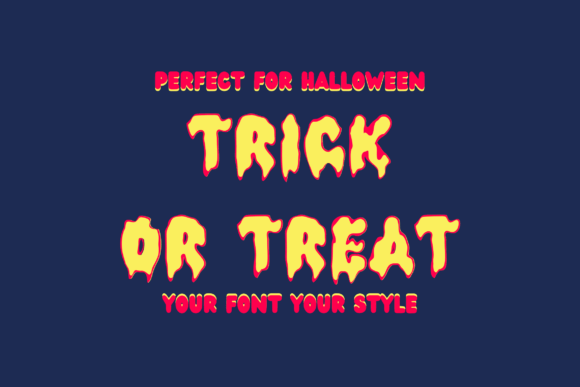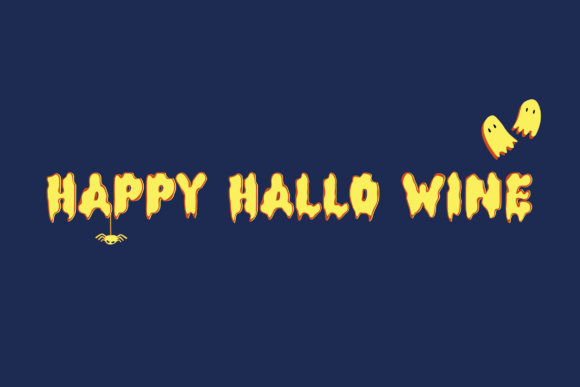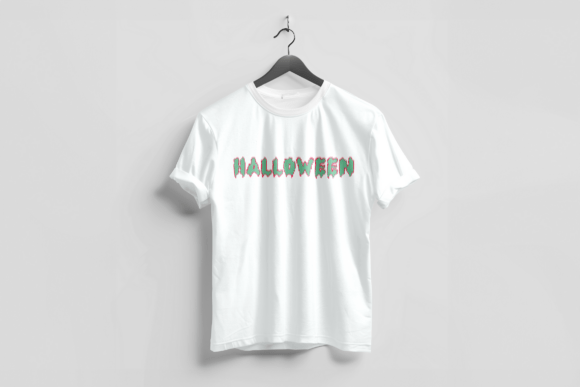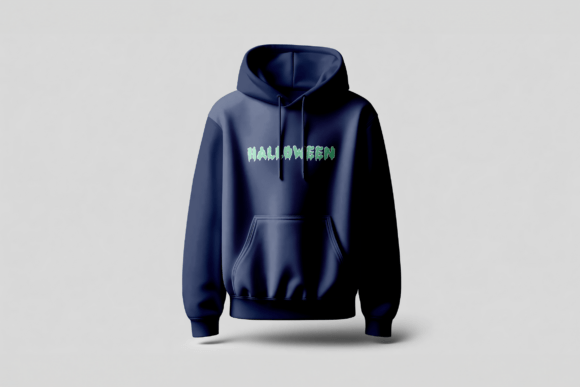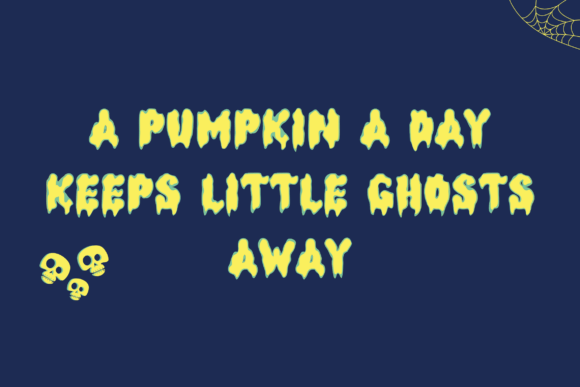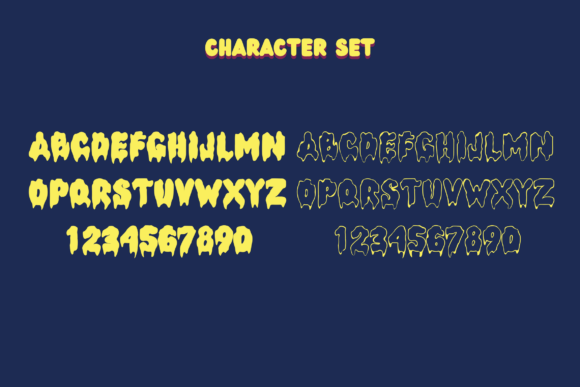
Have you ever been brainstorming a Halloween project, scrolling through font options, and suddenly stumbled upon the perfect match? That’s exactly what happened when designers discovered the enchanting Halloween Melt Font. This spellbinding typeface is specifically designed to capture the eerie essence of the spookiest night of the year.
With its melty, dripping design, Halloween Melt Font is perfect for adding a touch of whimsy and horror to your designs. Whether you’re crafting invitations, posters, or social media graphics, this font is sure to make your creations stand out from the crowd. Its layered format allows you to infuse depth and dimension into your text, creating a captivating, three-dimensional effect that’s sure to leave a lasting impression.
- Unique Characteristics: The Halloween Melt Font features a unique, melted design aesthetic, perfect for creating spooky and eerie effects in designs, prints, and digital art.
Halloween Melt Font Review
Overall, I’d say the Halloween Melt Font is a fun and spooky addition to any design project. The font has a great blend of creepy and playful elements, which makes it perfect for Halloween-themed designs, or even just for adding a bit of whimsy to your branding.
- ✨ Unique and creative design: The font has a lot of character and personality, which will definitely help your designs stand out.
- ✨ Perfect for Halloween and spooky designs: The font’s creepy and playful elements make it ideal for Halloween-themed projects, or for adding a spooky touch to your branding.
- ✨ Easy to read: Despite its creative design, the font is still easy to read, which is a big plus.
- ⚠️ Limited versatility: The font is very specific to Halloween and spooky designs, which means it may not be as versatile as other fonts.
- ⚠️ May not be suitable for formal designs: The font’s playful and creepy elements may not be suitable for formal or professional designs.
Overall, I’d say the Halloween Melt Font is a great choice for designers who are looking for a unique and creative font for their Halloween-themed projects. However, it may not be the best choice for designers who need a more versatile font that can be used in a variety of projects.
Some common use cases for the Halloween Melt Font include:
- Halloween party invitations and decorations
- Spooky-themed social media posts and graphics
- Horror movie title sequences and posters
For the best results, use the Halloween Melt Font in combination with bold, dark colors and eerie lighting effects to create a spooky atmosphere.